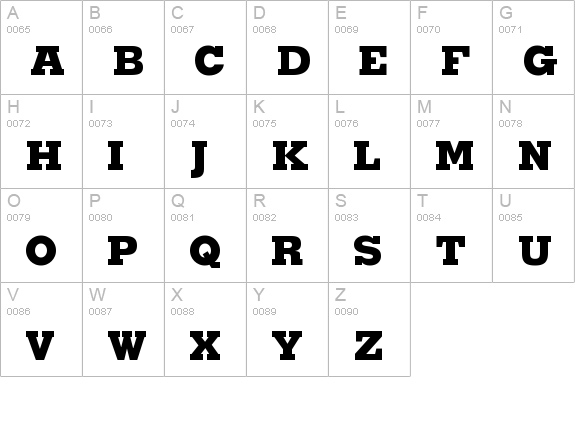
Jaak Black SSi Extra Bold is a maximum-weight, dramatic variant in the Jaak typeface family \xE2\x80\x94 well suited to maximum-impact headlines, posters, and packaging.
Introducing Jaak Black SSi Extra Bold font, the epitome of boldness and power. This striking typeface commands attention with its strong and imposing presence, making it perfect for headlines, titles, and any design that requires a touch of fierceness. Jaak Black SSi Extra Bold font is designed with meticulous attention to detail, ensuring each character exudes a sense of confidence and authority. The thick, solid strokes of this typeface create a visual impact, leaving a lasting impression on anyone who encounters it. But what makes Jaak Black SSi Extra Bold font even more remarkable is that it is freely available to download at FontsMarket.com. Yes, you read that right – this extraordinary font can be yours at no cost. Whether you are a professional designer looking to add a touch of boldness to your projects or an individual seeking to elevate your personal creations, Jaak Black SSi Extra Bold font is the perfect choice. With its versatility and legibility, this font can be used in a wide range of design applications. From posters and advertisements to logos and packaging, Jaak Black SSi Extra Bold font effortlessly captures attention and conveys a strong message. The distinctive curves and angles of Jaak Black SSi Extra Bold font lend a modern and contemporary feel to any design. Its boldness, combined with its sleek and streamlined appearance, creates a harmonious balance between strength and elegance. So why wait? Don't miss out on the opportunity to enhance your designs with the remarkable Jaak Black SSi Extra Bold font. Download it for free at FontsMarket.com and let your creativity soar to new heights. Unleash the power of boldness with Jaak Black SSi Extra Bold font and make a lasting impression with every design you create.